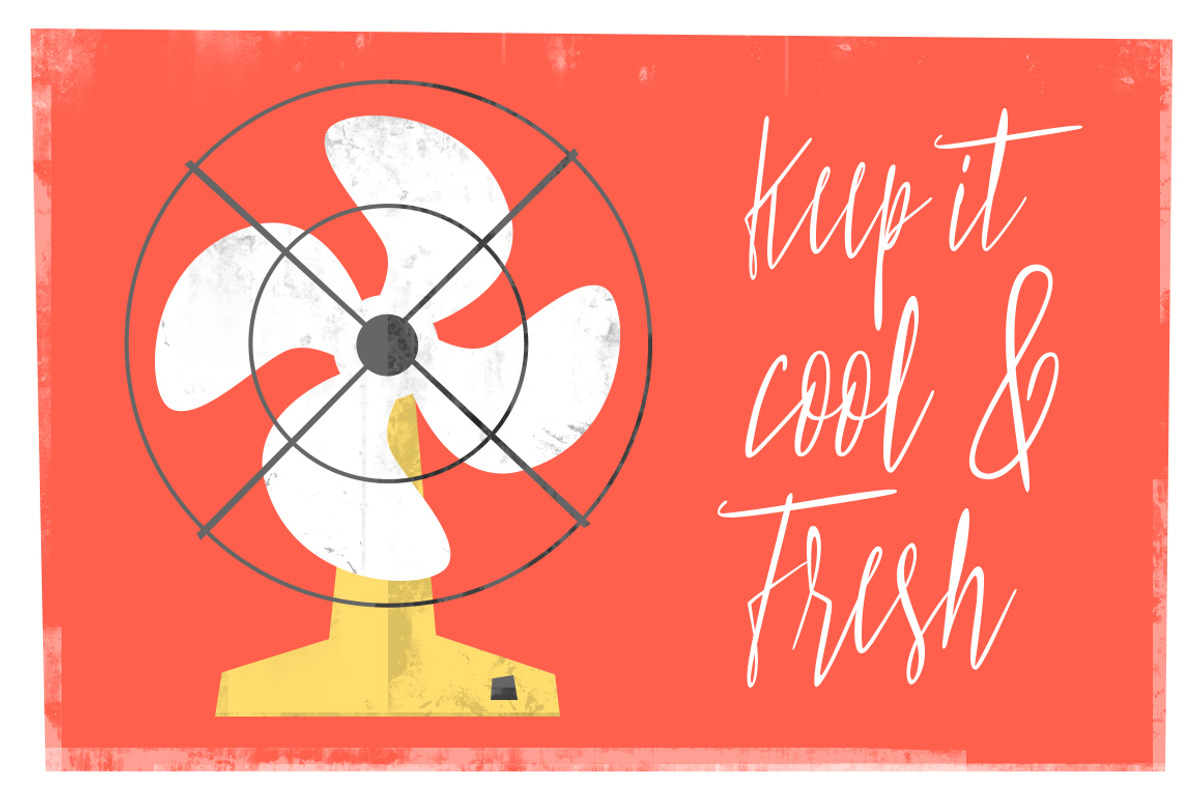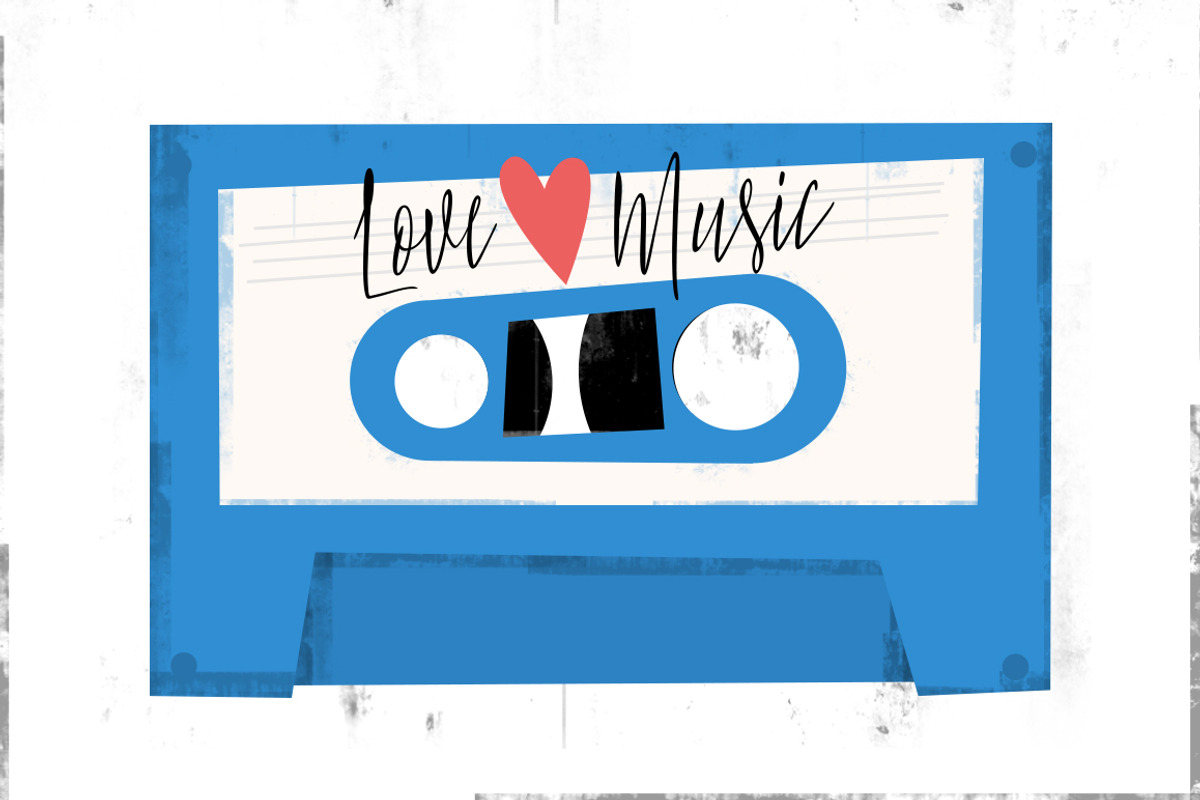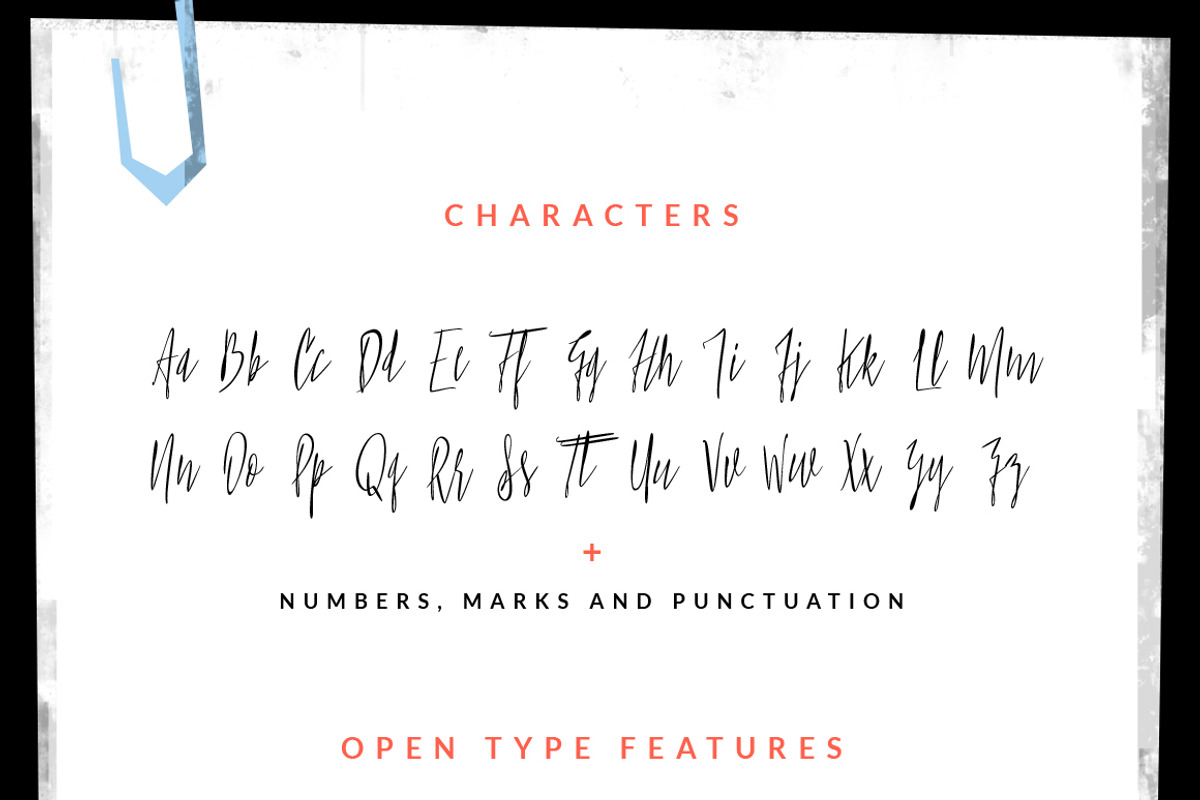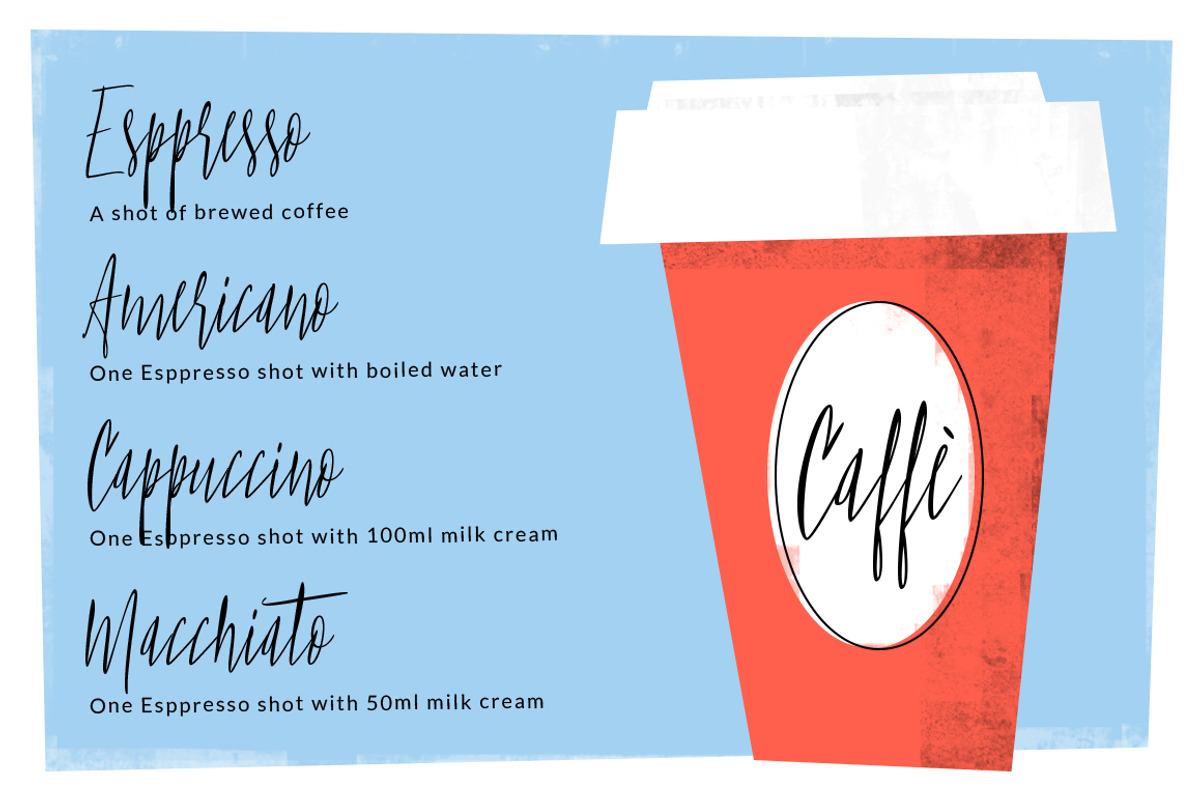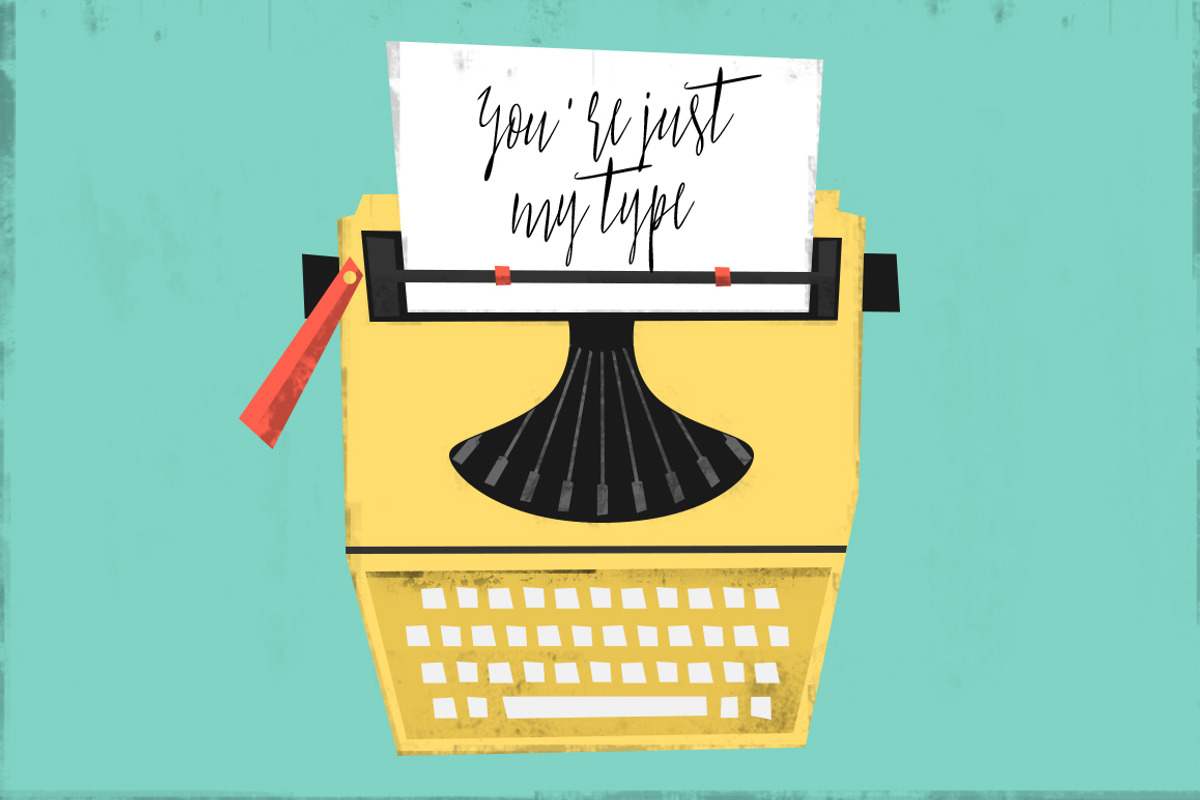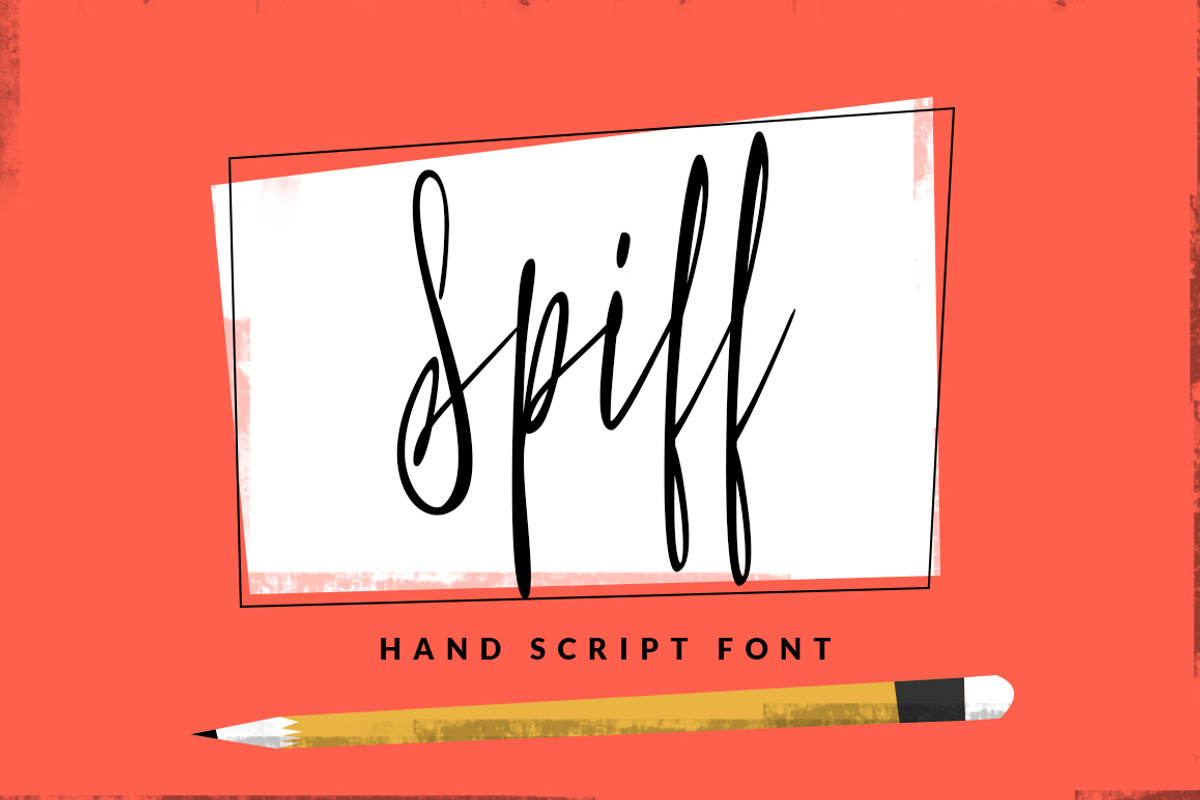
Spiff - Hand Script Font
Spiff - Hand Script Font by VladCristea is a font selected for branding, posters, packaging, typography.
- Also the font contains the Latin language support.
- The font is made by almost 400 glyphs, including uppercase, lowercase, uppercase alternates, lowercase alternates letters, numbers, symbols
Spiff - Hand Script Font by VladCristea fits naturally into Branding, posters, packaging, typography.